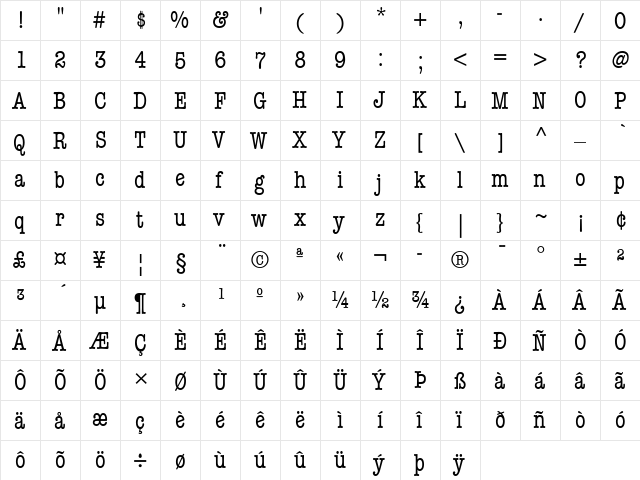
AmericanTypewriter LT CnA Regular
AmericanTypewriter LT CnA brings the precise, column-aligned rhythm of monospaced typography to designs that value technical clarity and systematic order. The delicate stroke weight brings airiness and refinement to layouts.
Pro Tip: Pair AmericanTypewriter LT CnA with a proportional sans for UI contexts where code-style labels and regular body copy need to coexist.